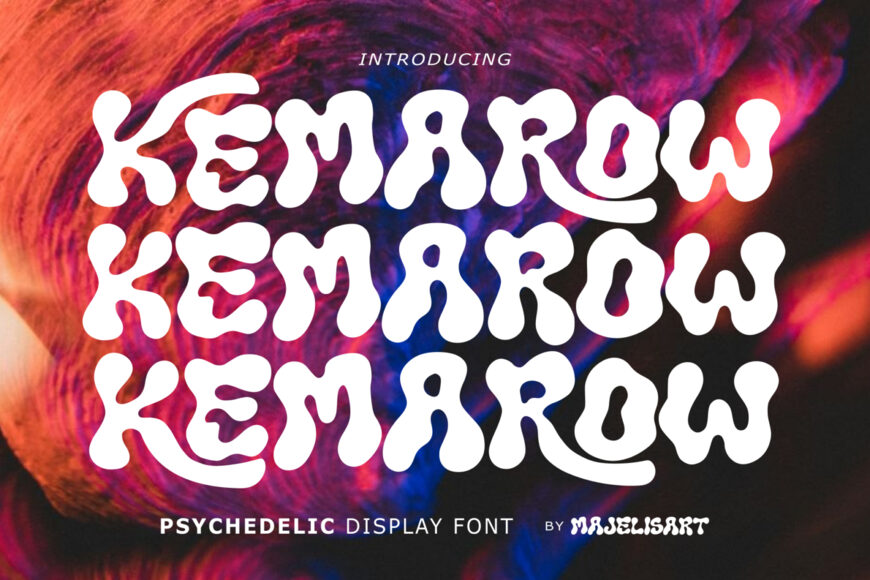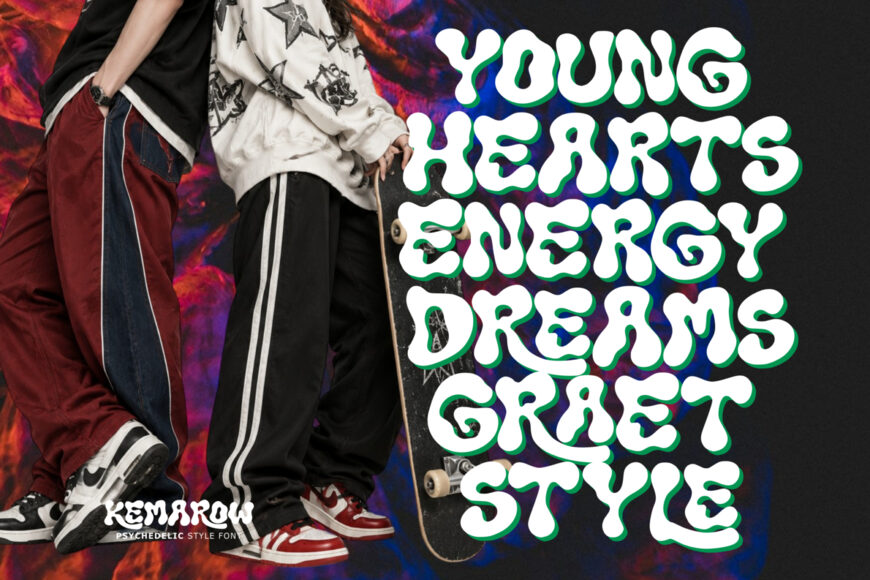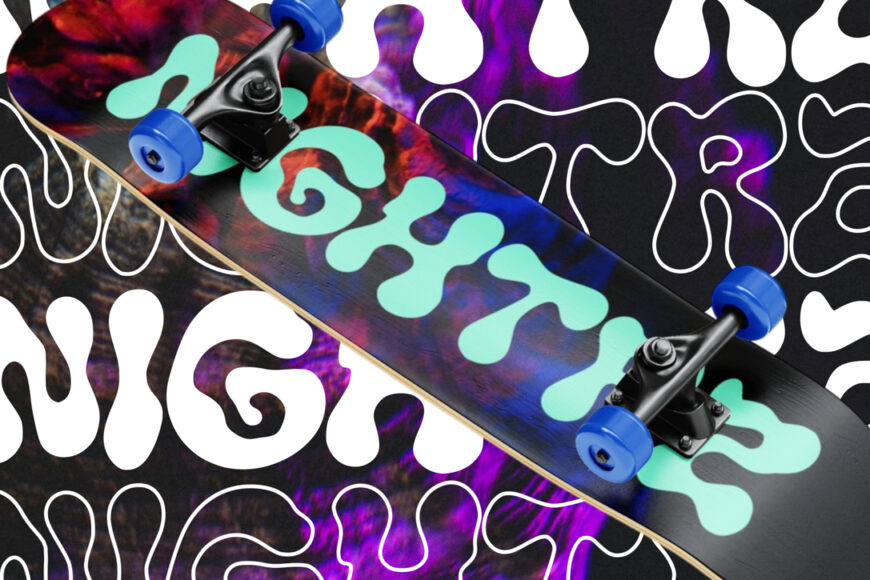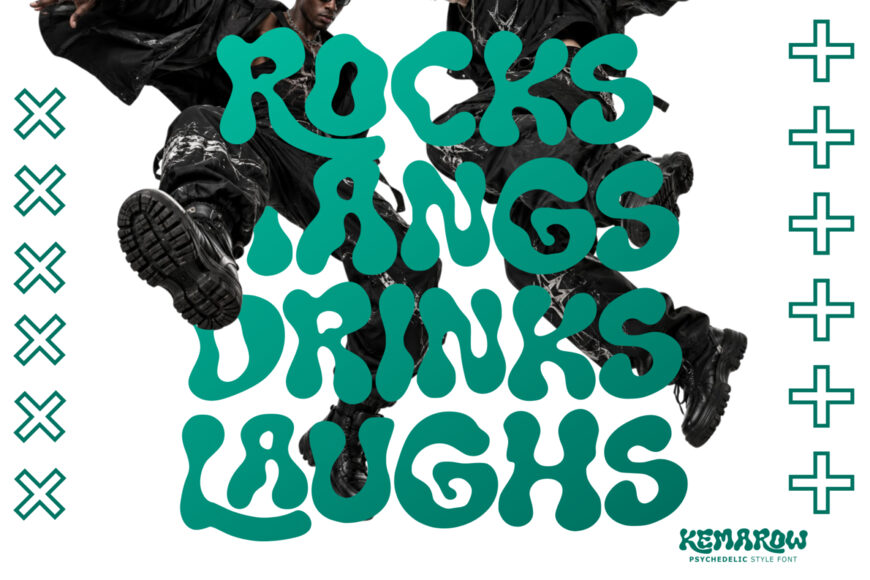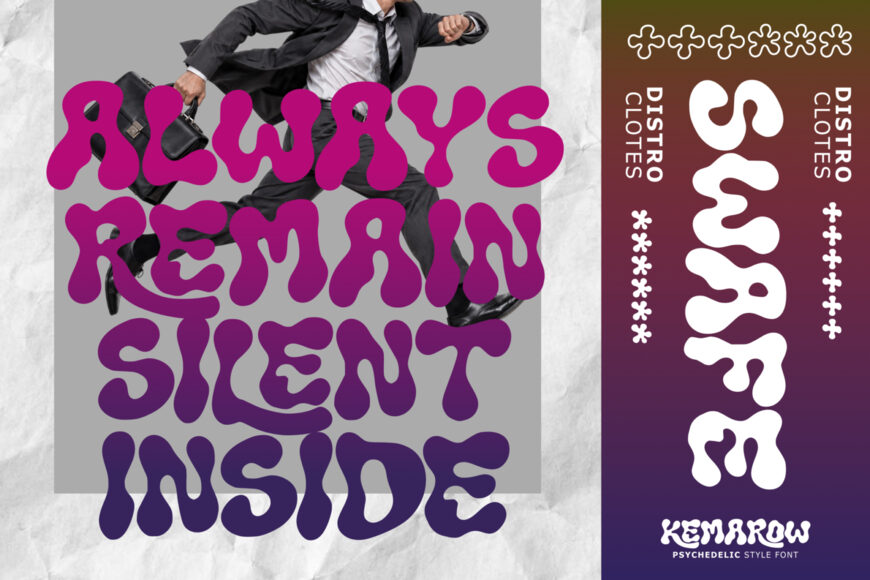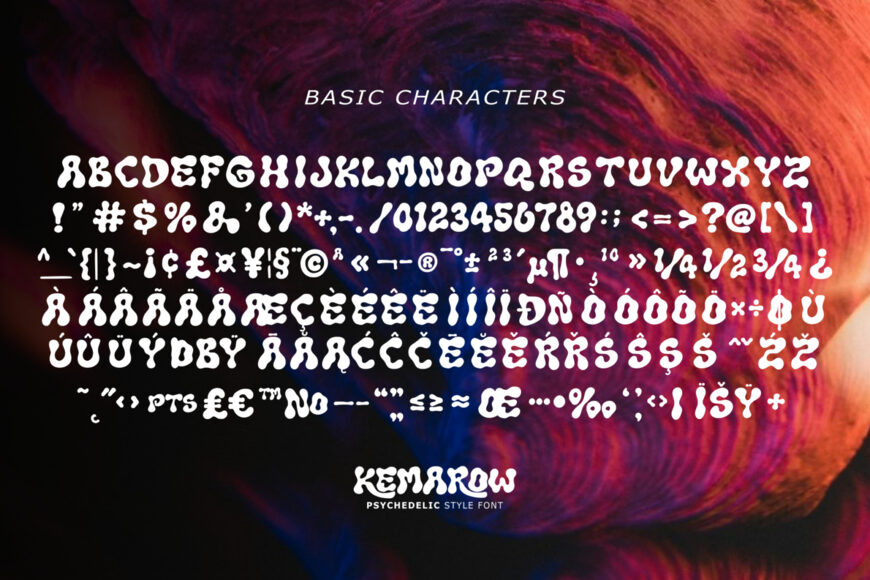
Introducing Kemarow, a bold and playful Psychedelic Display Typeface inspired by fluid shapes, groovy lettering, and vibrant retro aesthetics.
Featuring soft, wavy curves, chunky forms, irregular proportions, and organic letterforms, Kemarow creates a fun and energetic appearance with a distinctive psychedelic personality. Its unique shapes are designed to make headlines and short words instantly stand out.